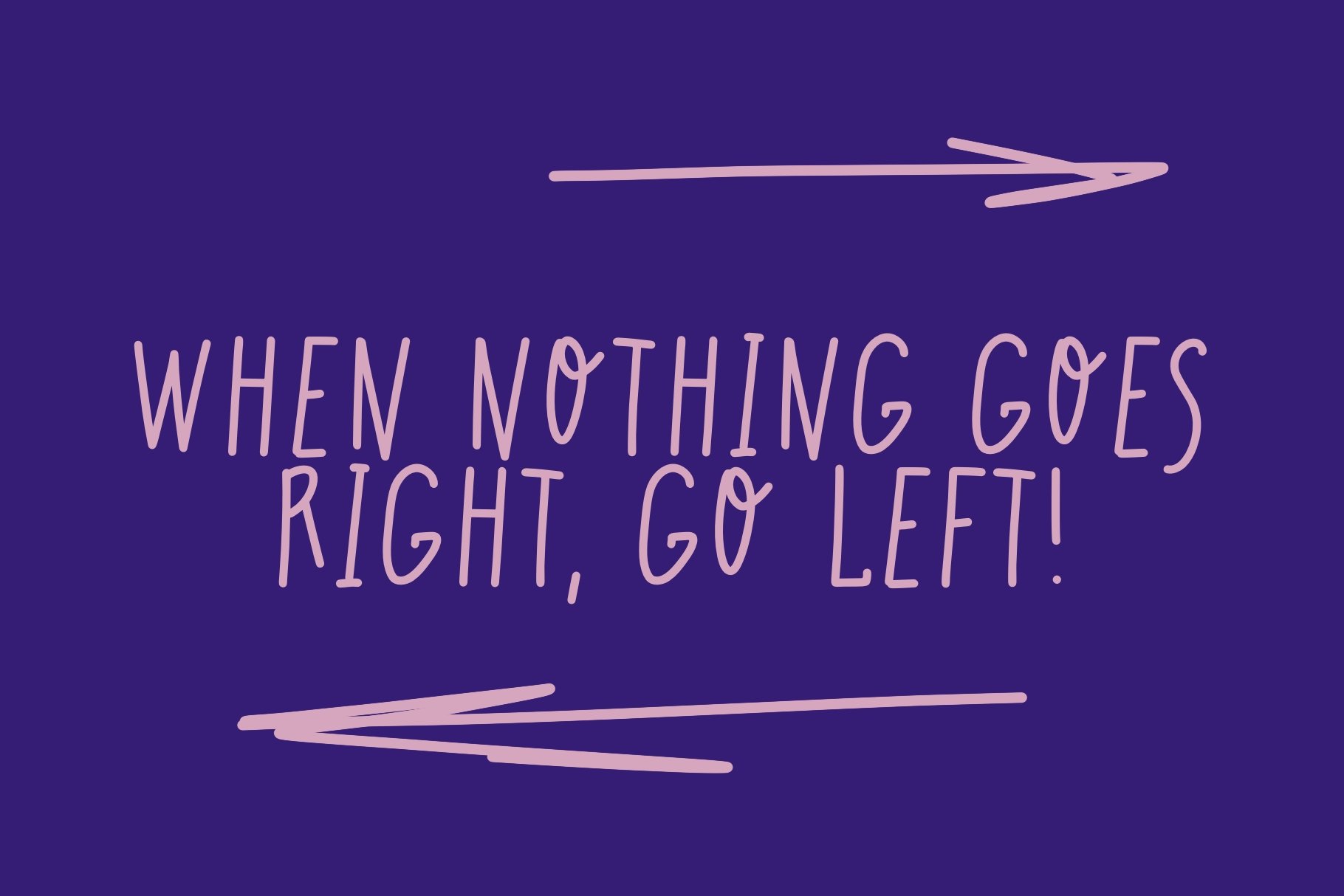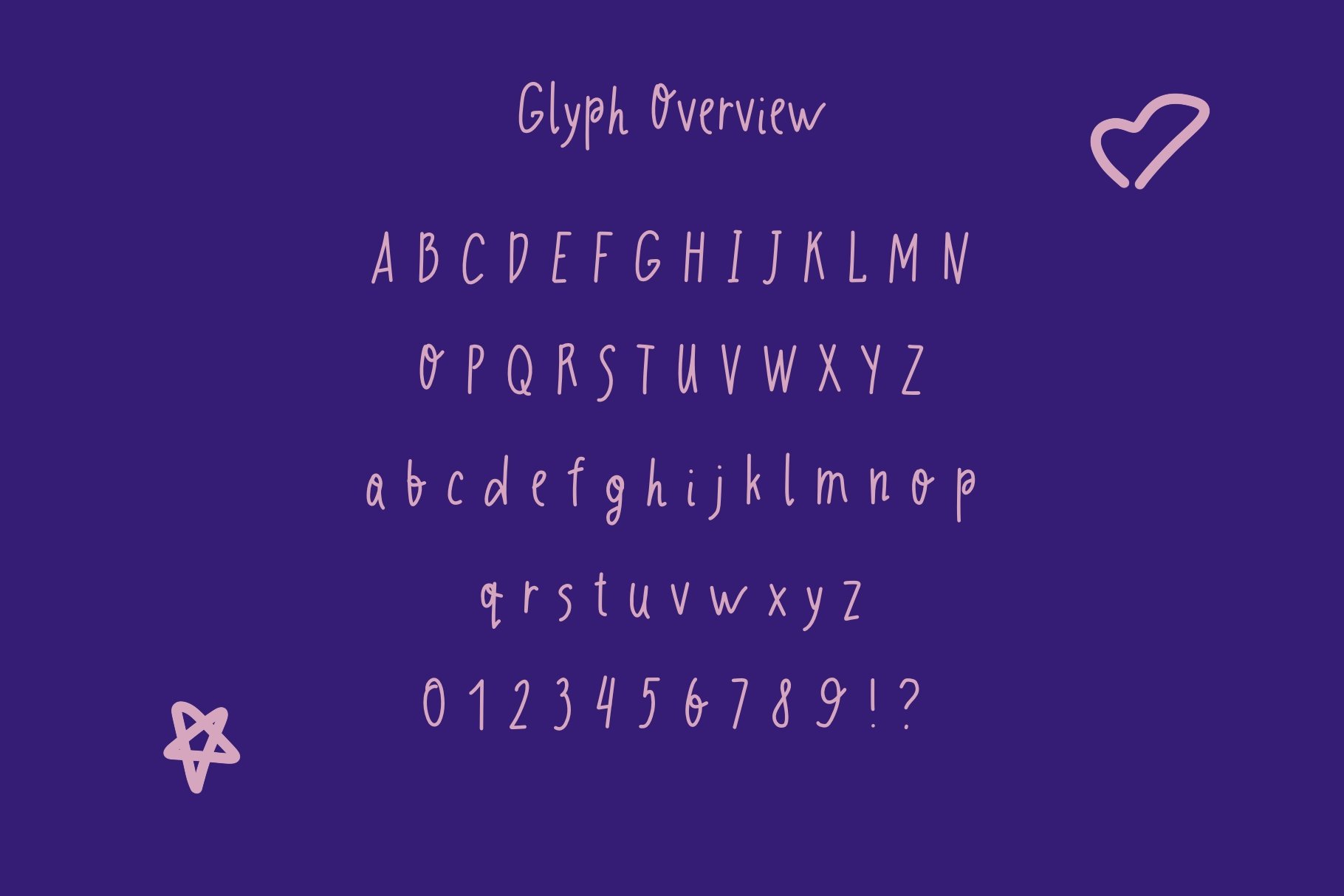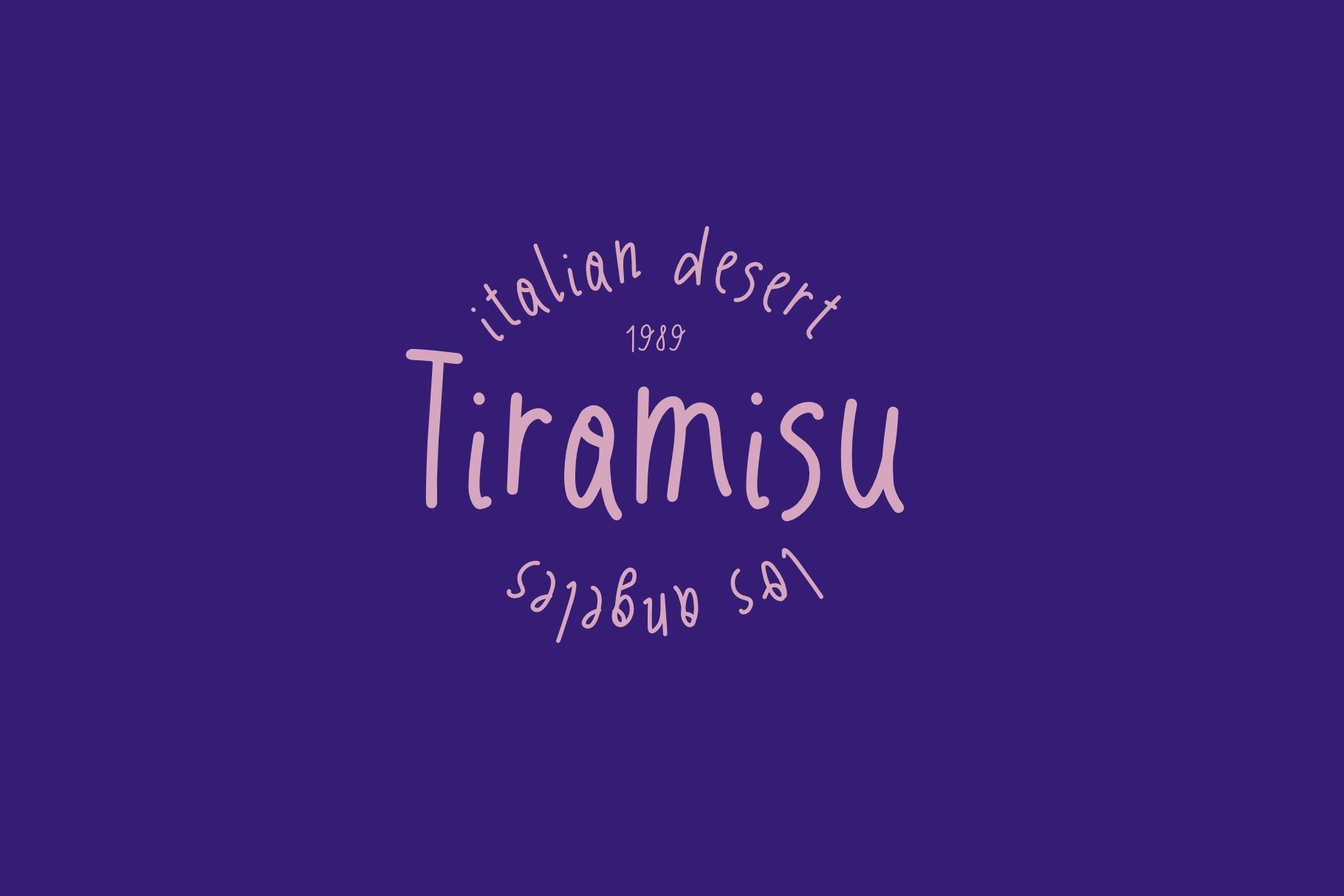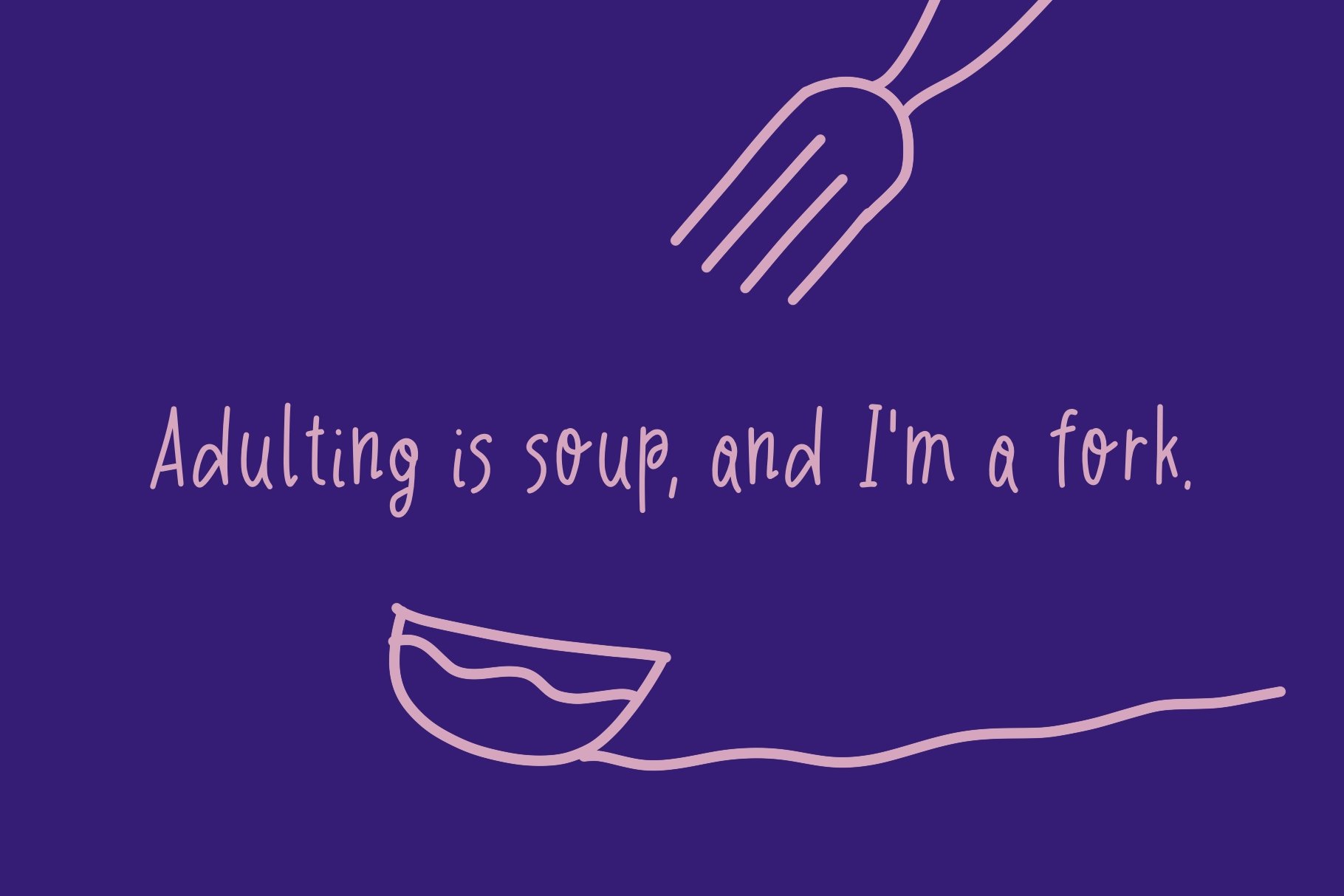
SA Papaya Handwriting Font - Fun & Creative Typeface
This playful yet elegant font brings a sense of charm and creativity to any project! With its casual, handwritten style and clean letterforms, it’s perfect for creating eye-catching designs that feel warm and approachable. Whether you’re designing social media graphics, greeting cards, posters, or product packaging, this font is your go-to choice for a fun and friendly vibe.
Features:
• Complete Latin alphabet (uppercase and lowercase).
• Numbers and essential symbols.
• Ideal for creative projects like invitations, logos, and branding.